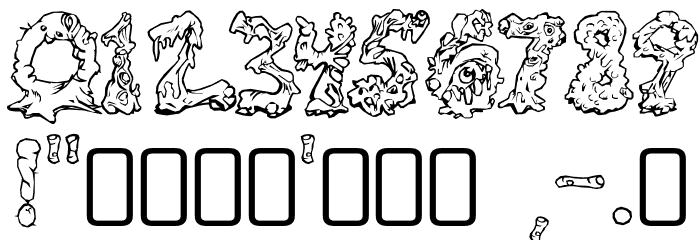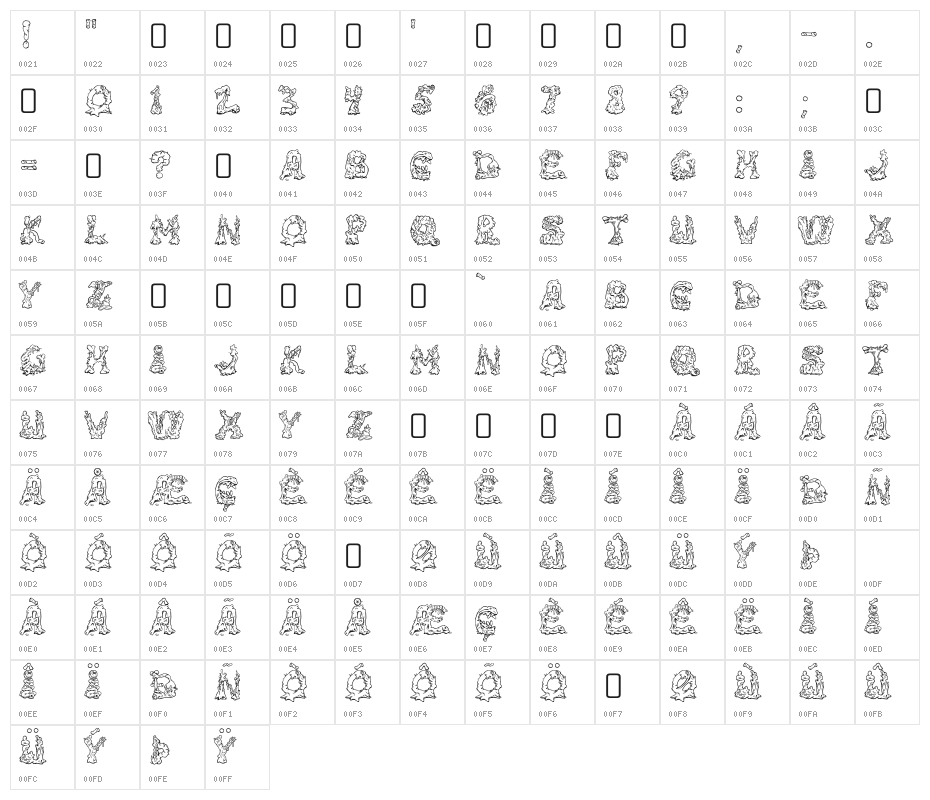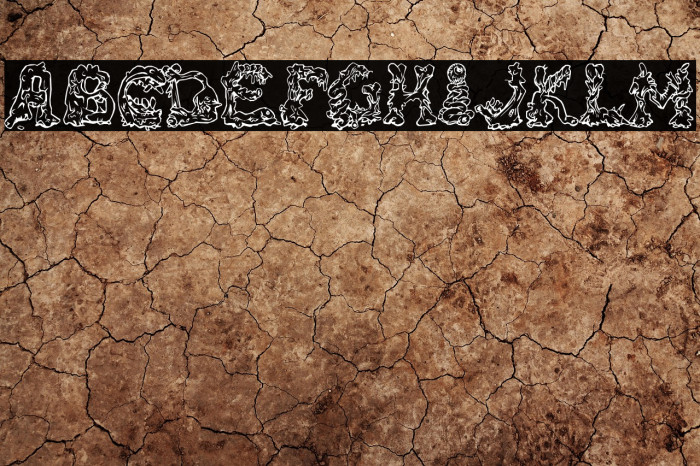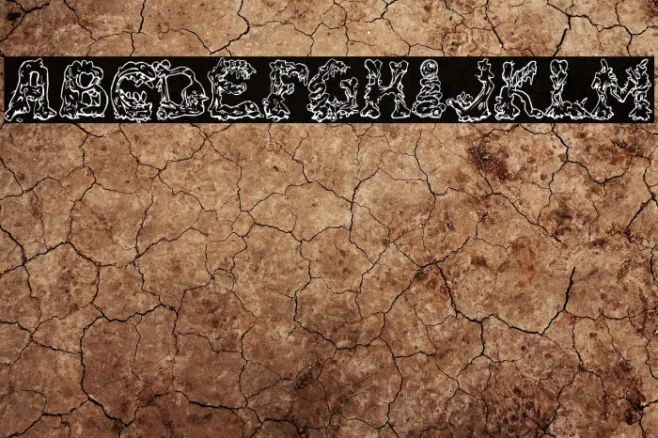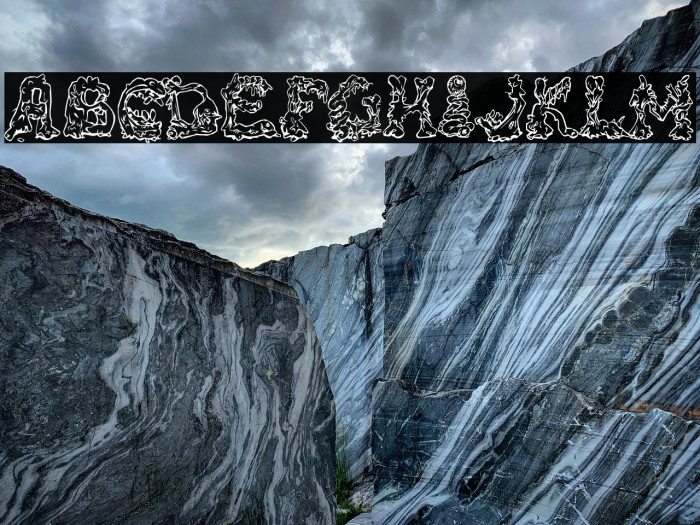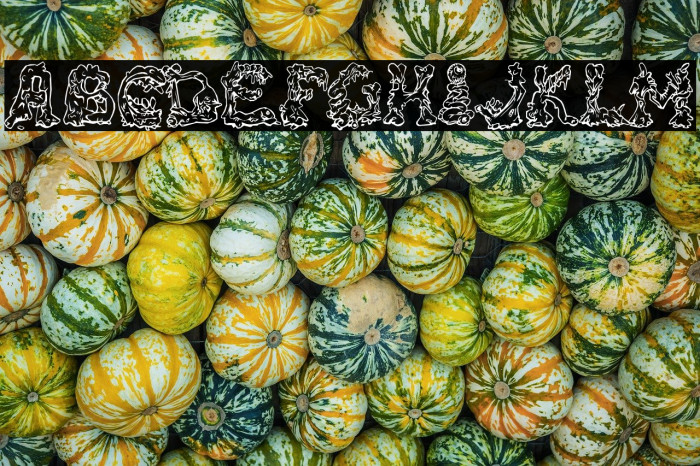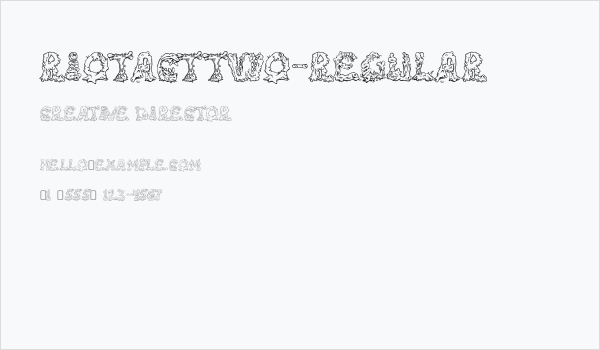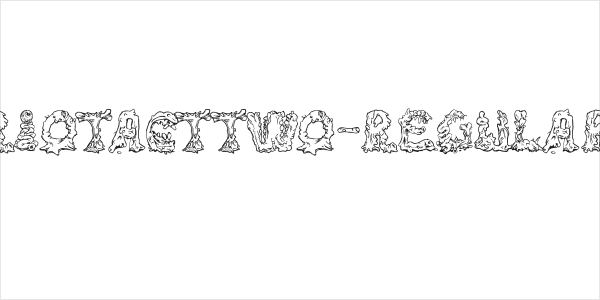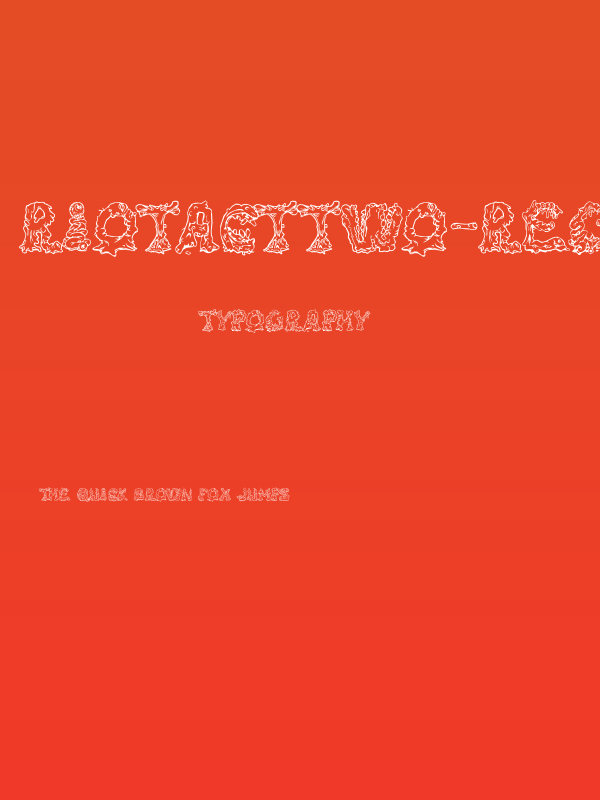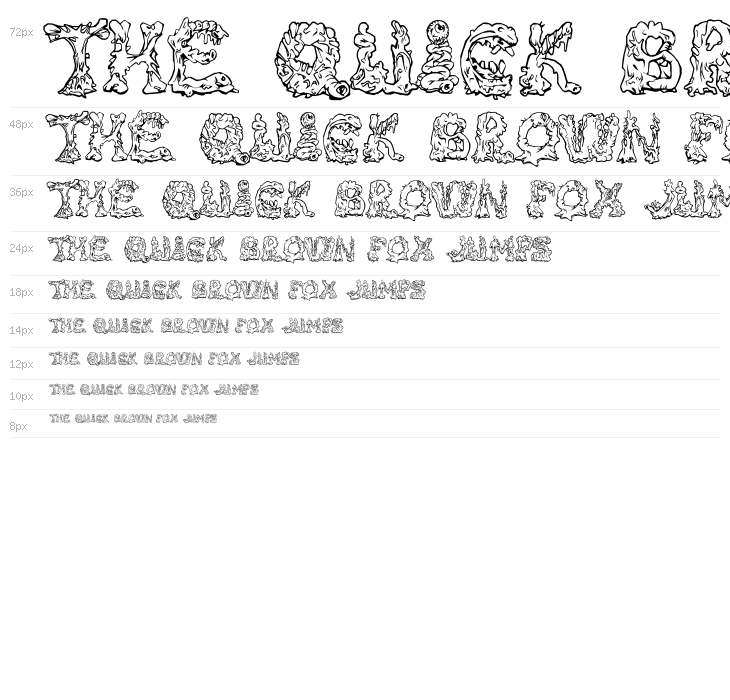
RiotActTwo-Regular Font
RiotActTwo-Regular Description
This font features a highly decorative and playful design, with each character appearing as if it is made from a gooey, organic substance. The letters are filled with intricate details, giving them a textured and almost three-dimensional appearance. The style is reminiscent of horror or Halloween themes, with a whimsical twist. The characters are bold and eye-catching, making them suitable for creative and unconventional projects. The font's unique style makes it stand out, with each letter having its own distinct personality while maintaining a cohesive look across the entire set.
| Proposed Projects | Perfect for Halloween-themed designs, horror movie posters, children's books, or any project requiring a playful and spooky aesthetic. |